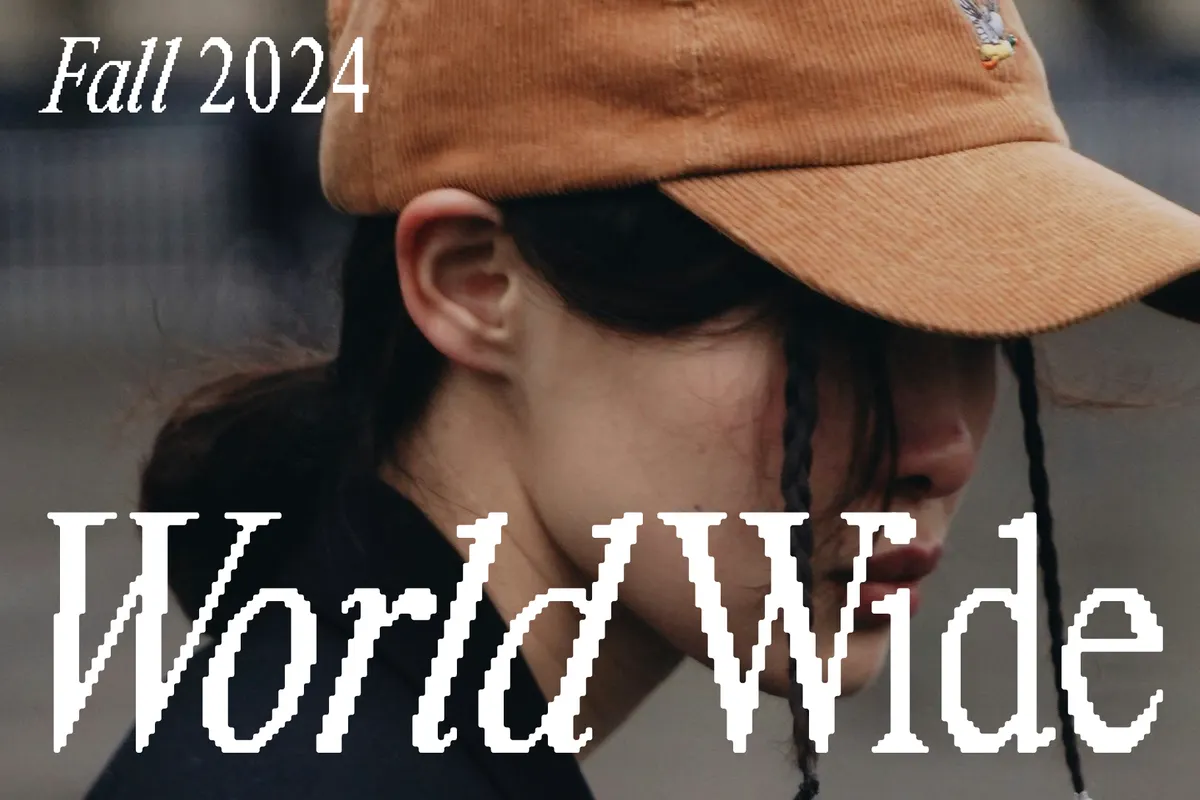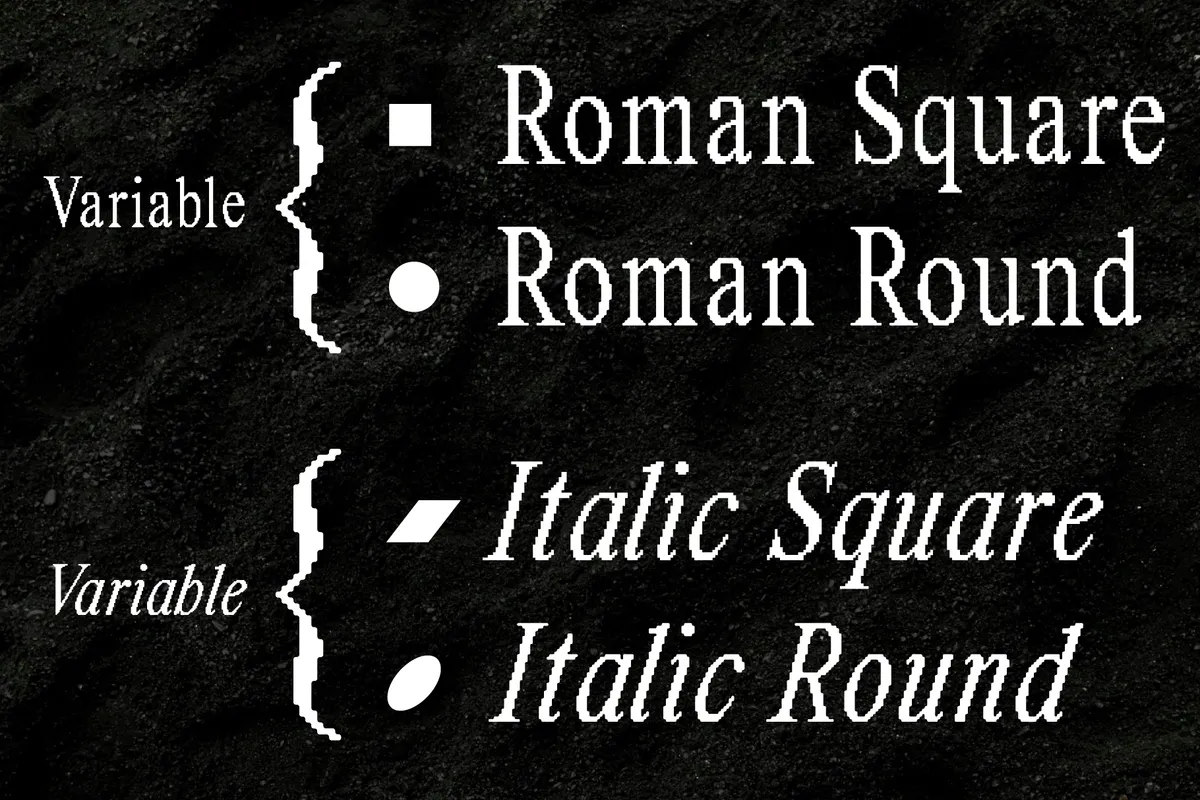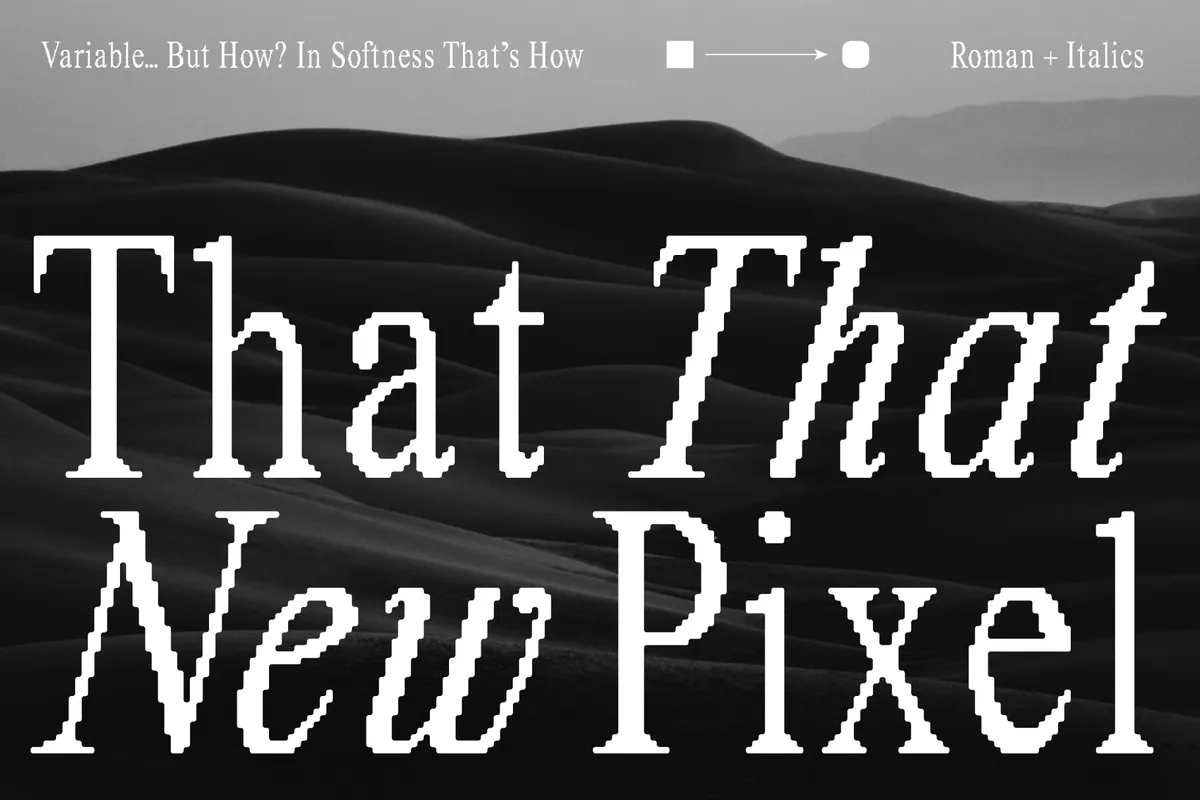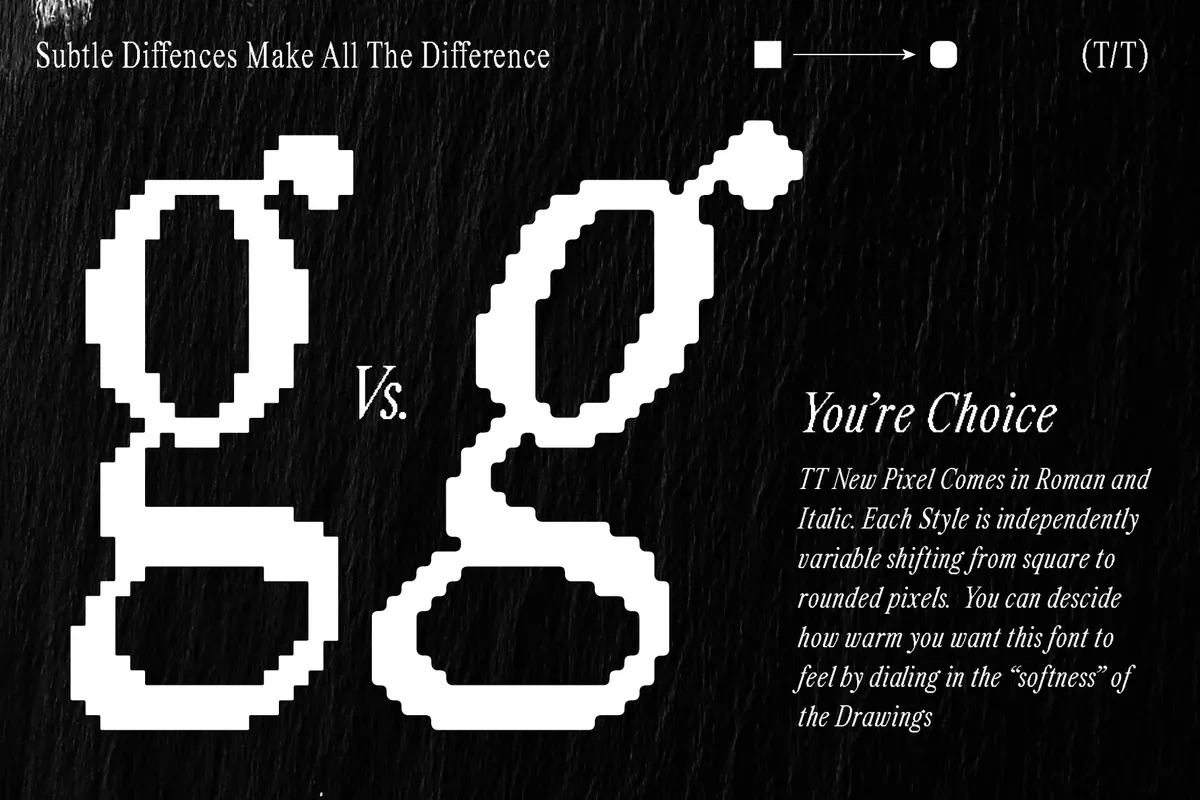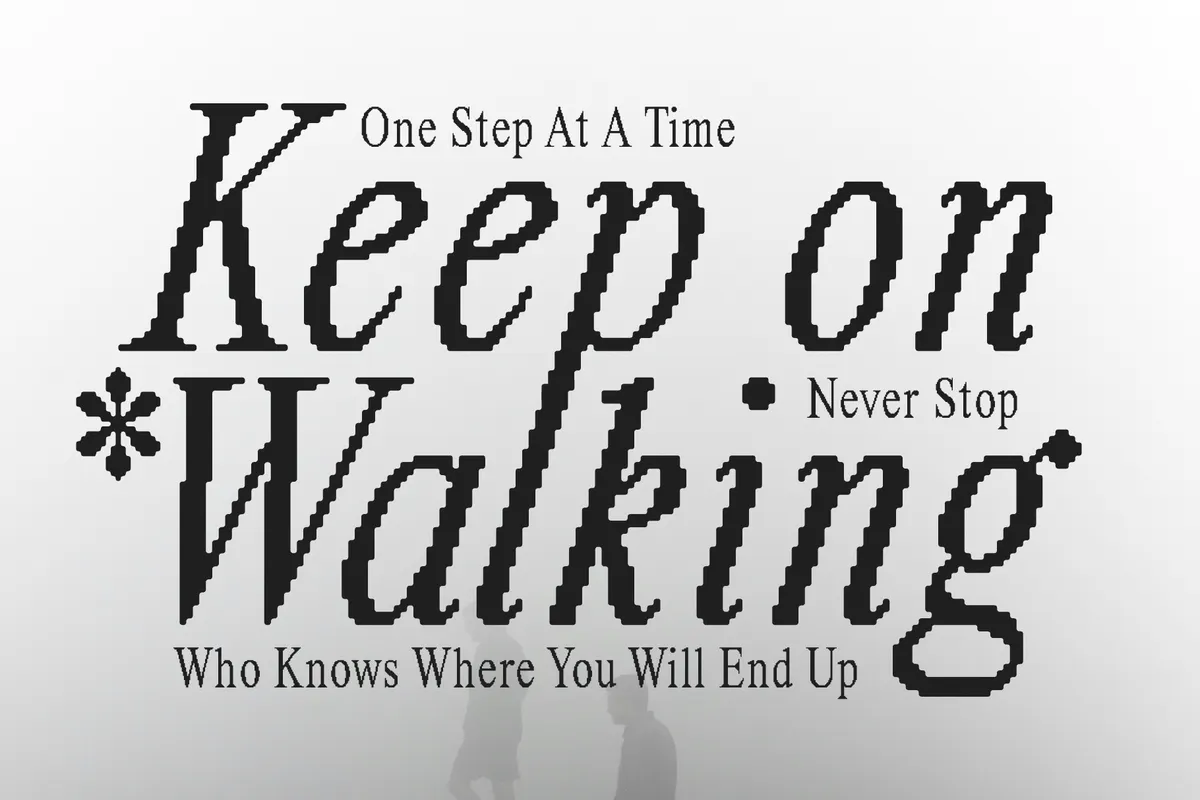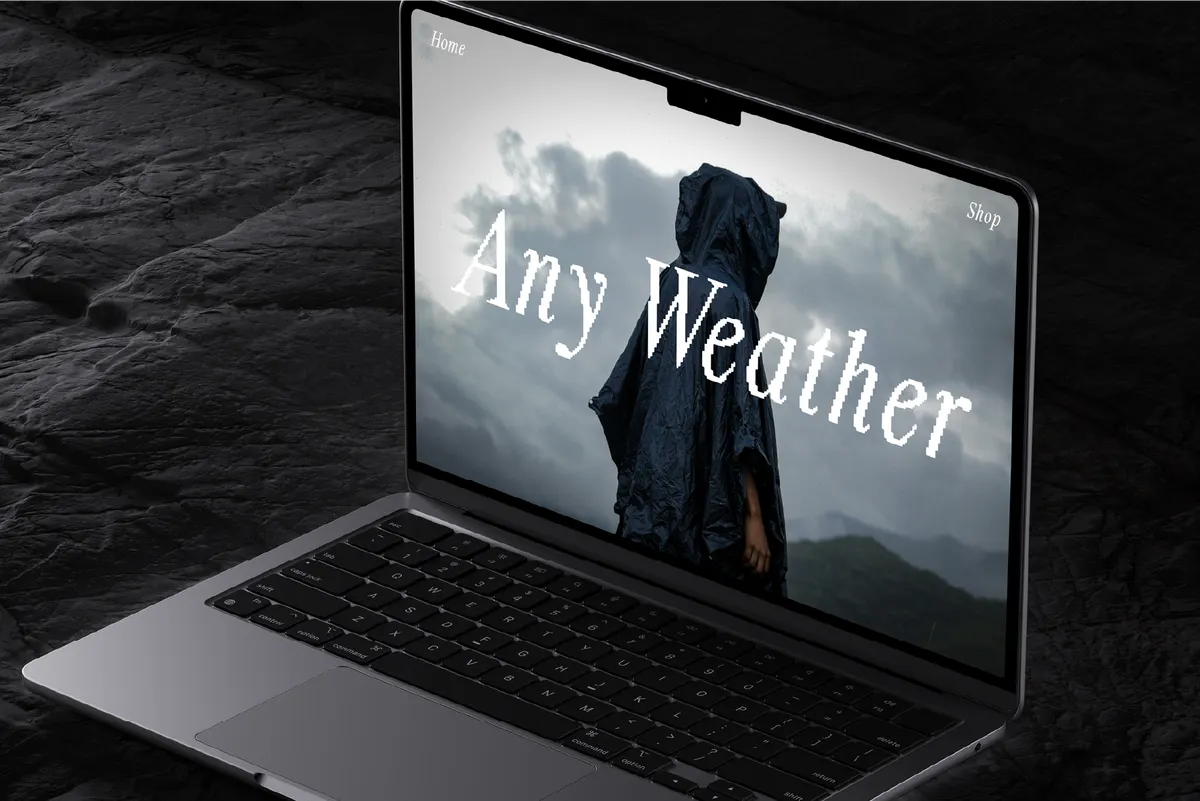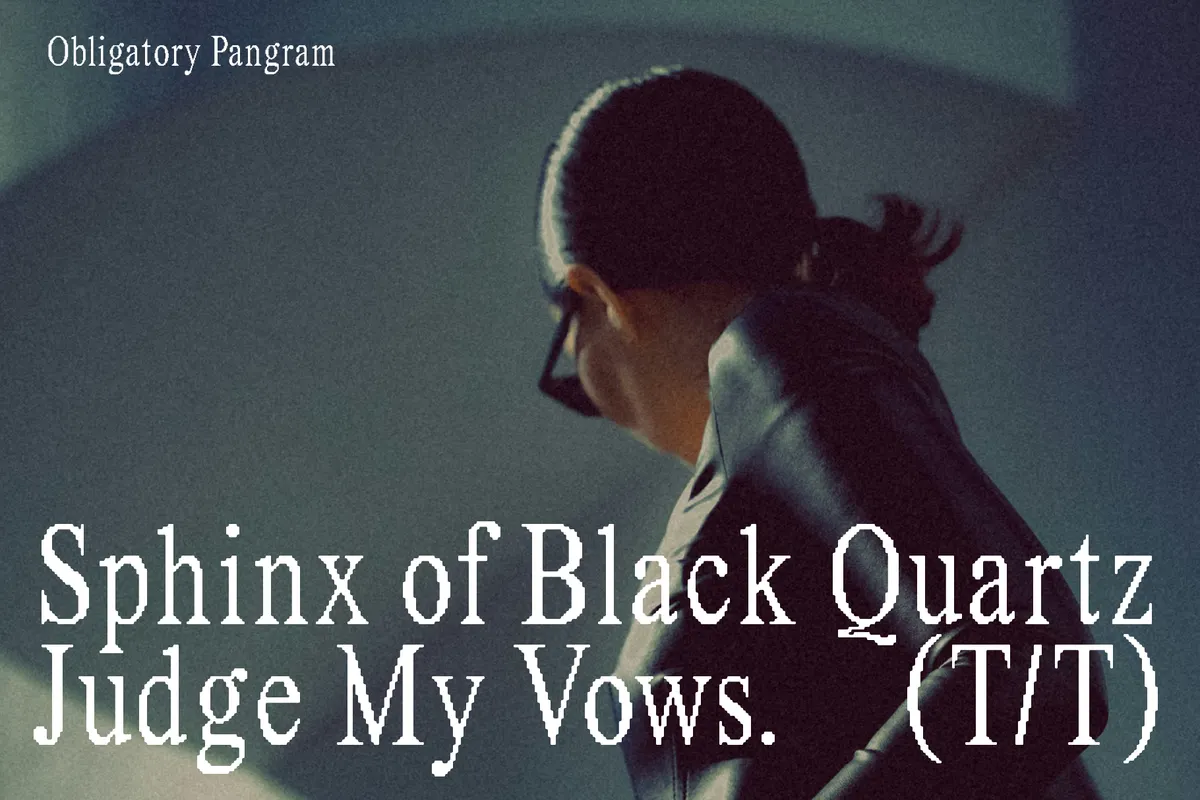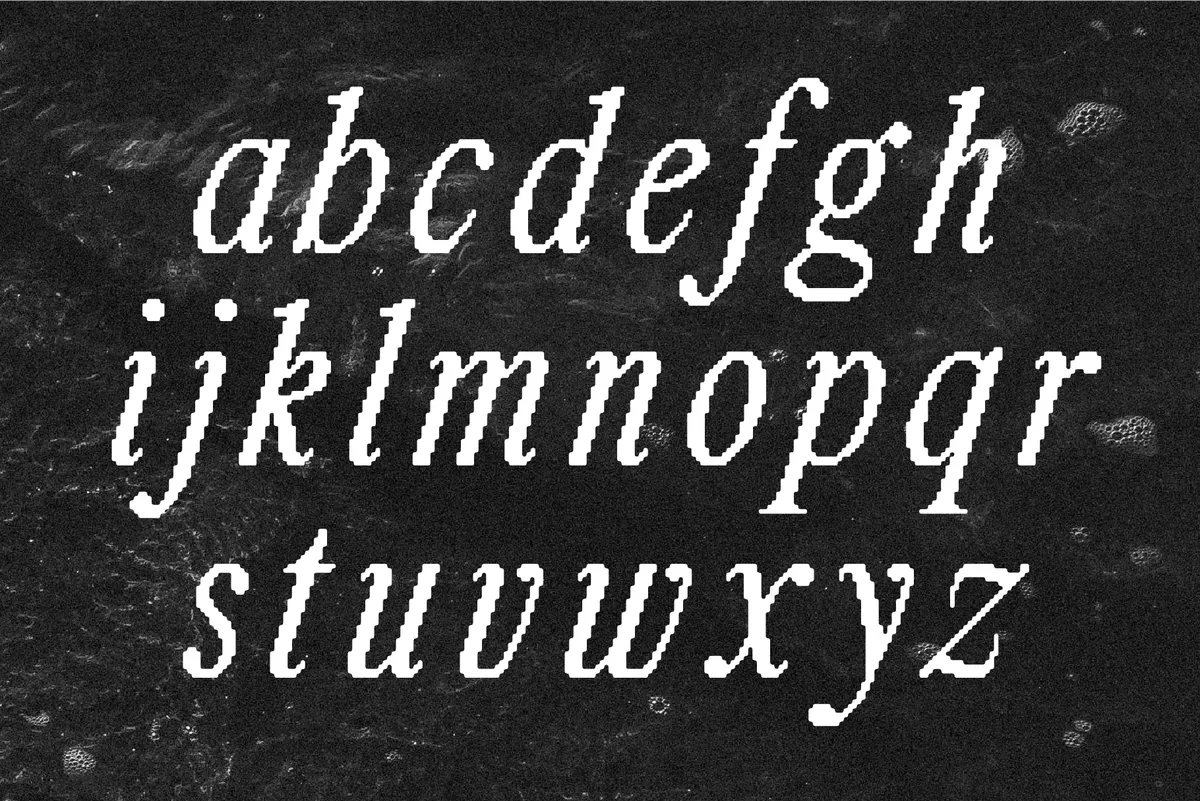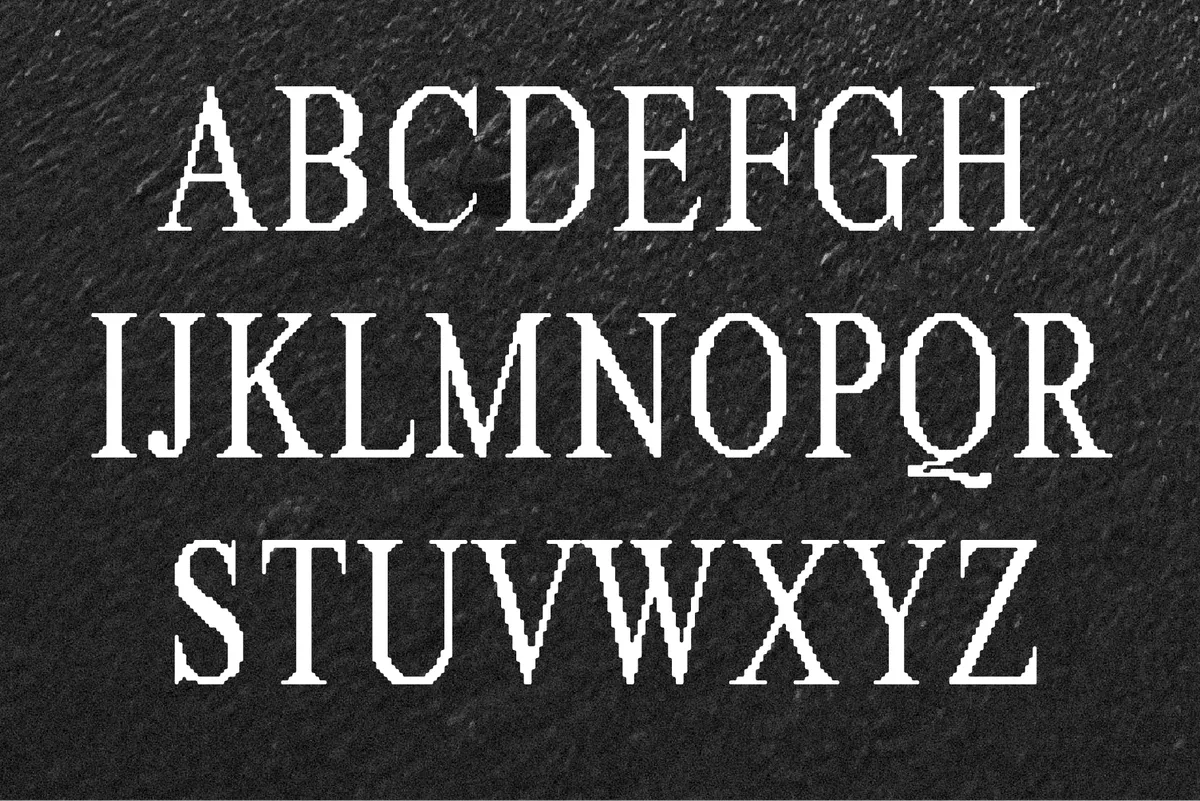
That That New Pixel Font
That That New Pixel is a retro pixel serif built on a jagged, cross-stitched outline that turns a classic serif skeleton into deliberately rough, digitized edges. Two width styles — Square and Round — set the texture at either end, and each comes with its own italic.
A variable axis moves between those two ends, so a single file dials the pixel grain from sharp and chunky to soft and rounded. Use it for posters, magazine headlines, product packaging, logos, branding, and social media graphics that want a retro, glitch-adjacent warmth.
- 2 width styles: Square, Round, each with a matching Italic;
- variable weight axis shifting from square to round pixels;
- uppercase & lowercase;
- numerals, punctuation & symbols;
- ligatures, ordinals, fractions, superscript & subscript figures;
- multilingual support;
- 459 glyphs per style.